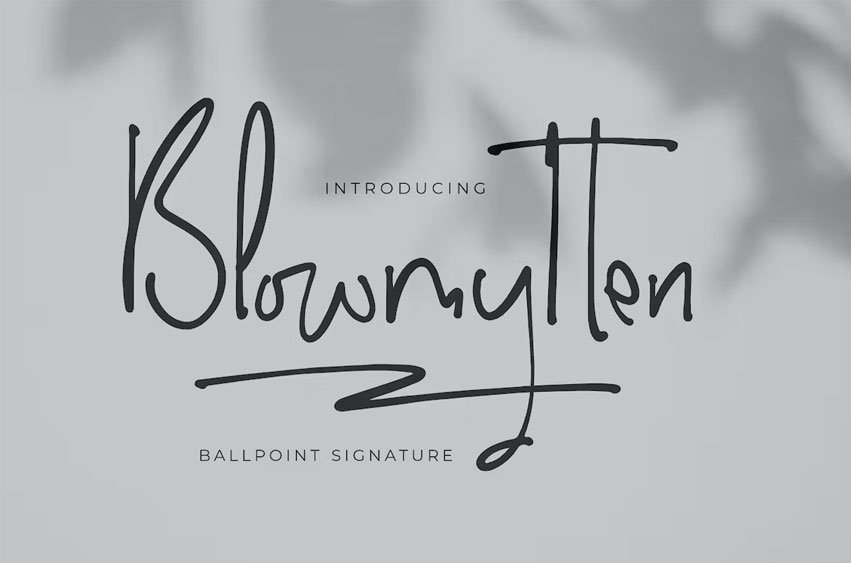
Blowmytten Font is suitable to complement your digital and printed creative products. This font is perfect for posters, social media posts, branding, personal projects, etc.